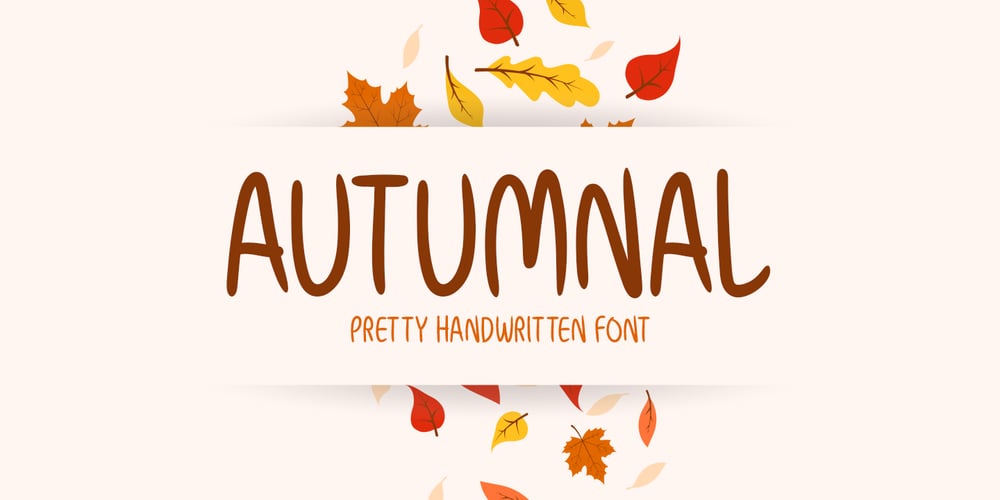
Autumnal Font Family was designed by Md Shohail Bhuian and published by Seemly Fonts. Autumnal contains 1 styles and family package options. A lovely handwritten typeface is called Autumnal. For stationery, logos, t-shirts, paper, print design, website headers, picture frames, flyers, album covers, posters, image sliders, and other things, this typeface is ideal.